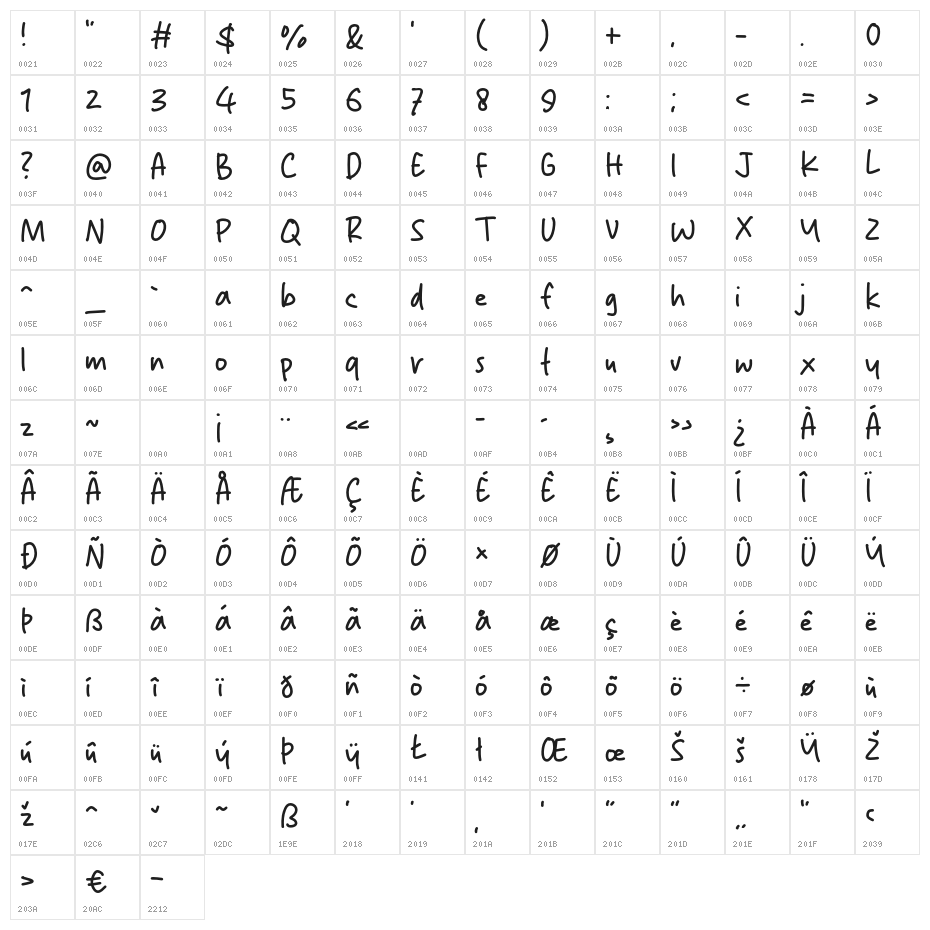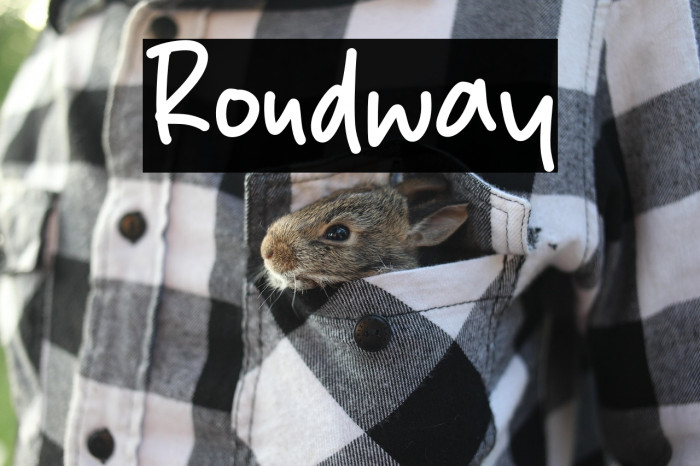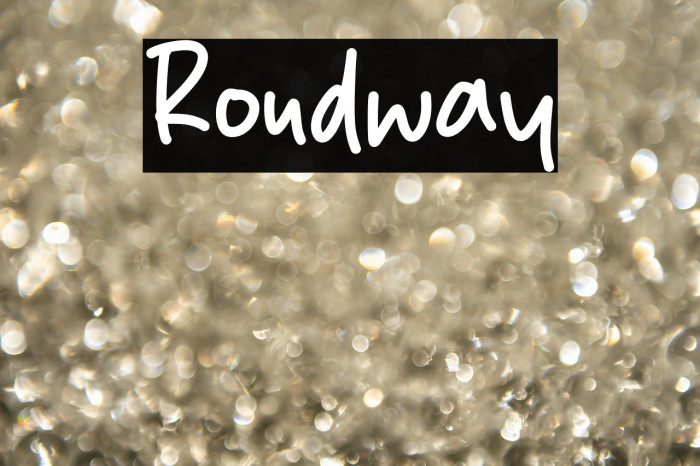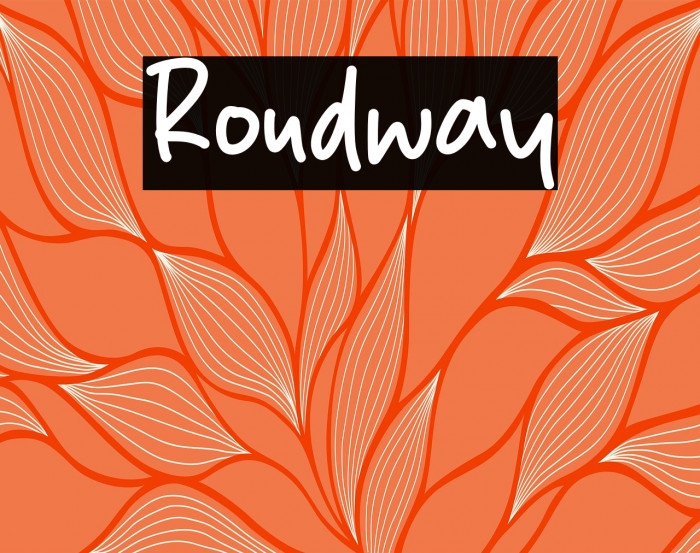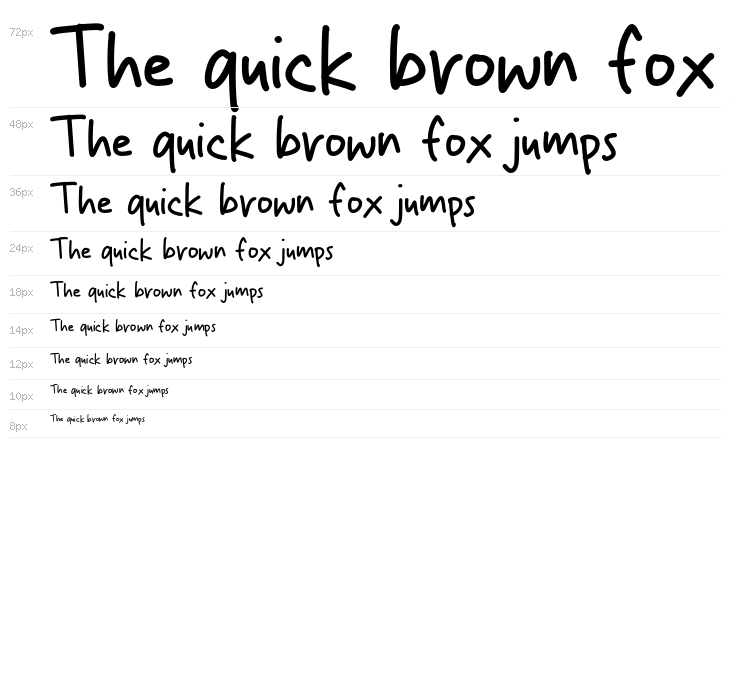
Roudway Font
Roudway Description
This font features a playful and casual handwritten style, characterized by its smooth, rounded strokes and slightly irregular letterforms. The uppercase and lowercase letters maintain a consistent flow, giving it a friendly and approachable appearance. The numerals and special characters are designed to match the overall style, ensuring uniformity across all glyphs. Its informal nature makes it suitable for projects that require a personal touch or a relaxed vibe.
ROUDWAY UPPERCASE
ROUDWAY LOWERCASE
ROUDWAY OTHER CHARS
| Use Case | Logos, Headlines, Informal Text |
| Proposed Projects | Ideal for greeting cards, children's books, informal invitations, and social media graphics. |